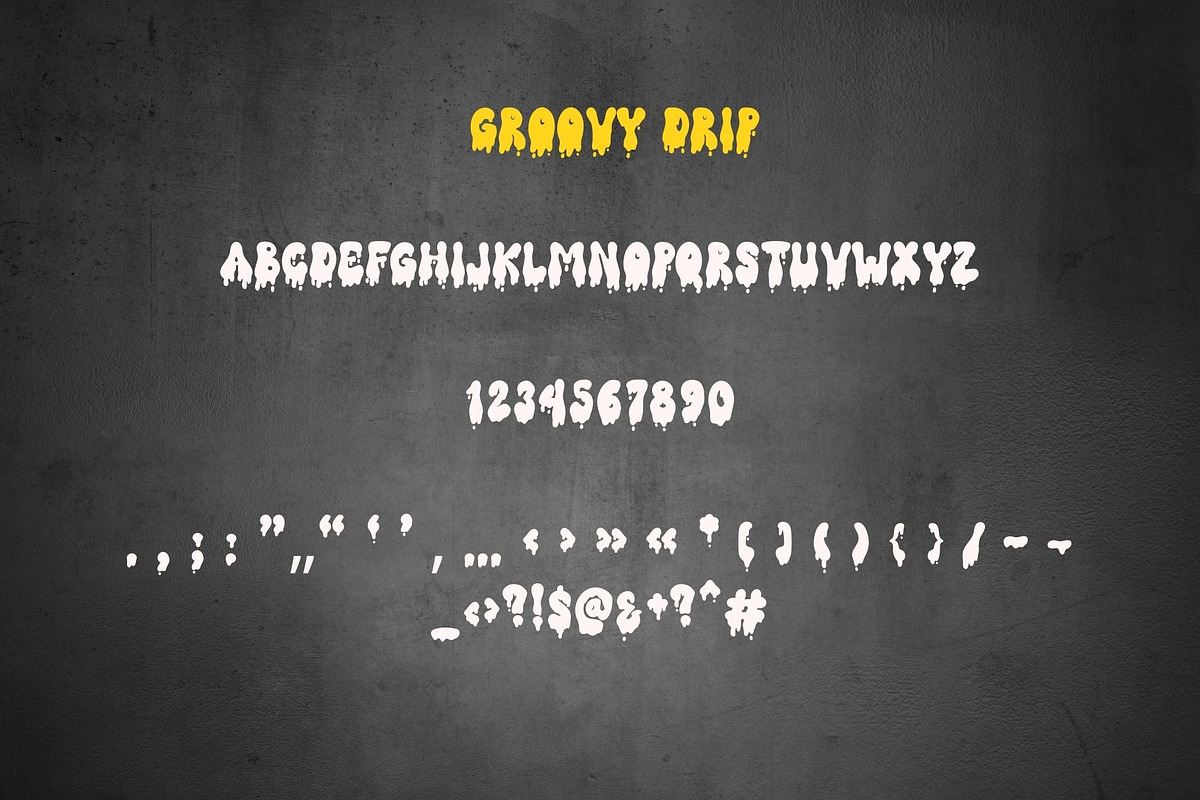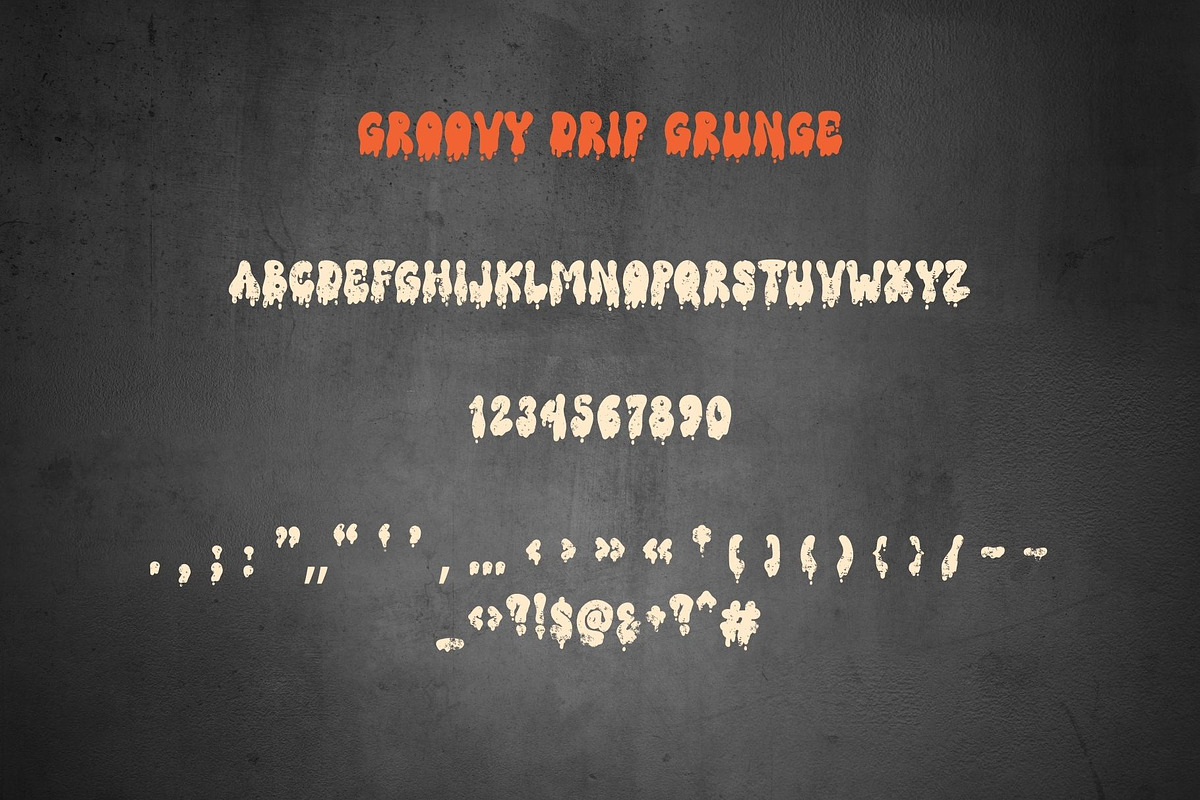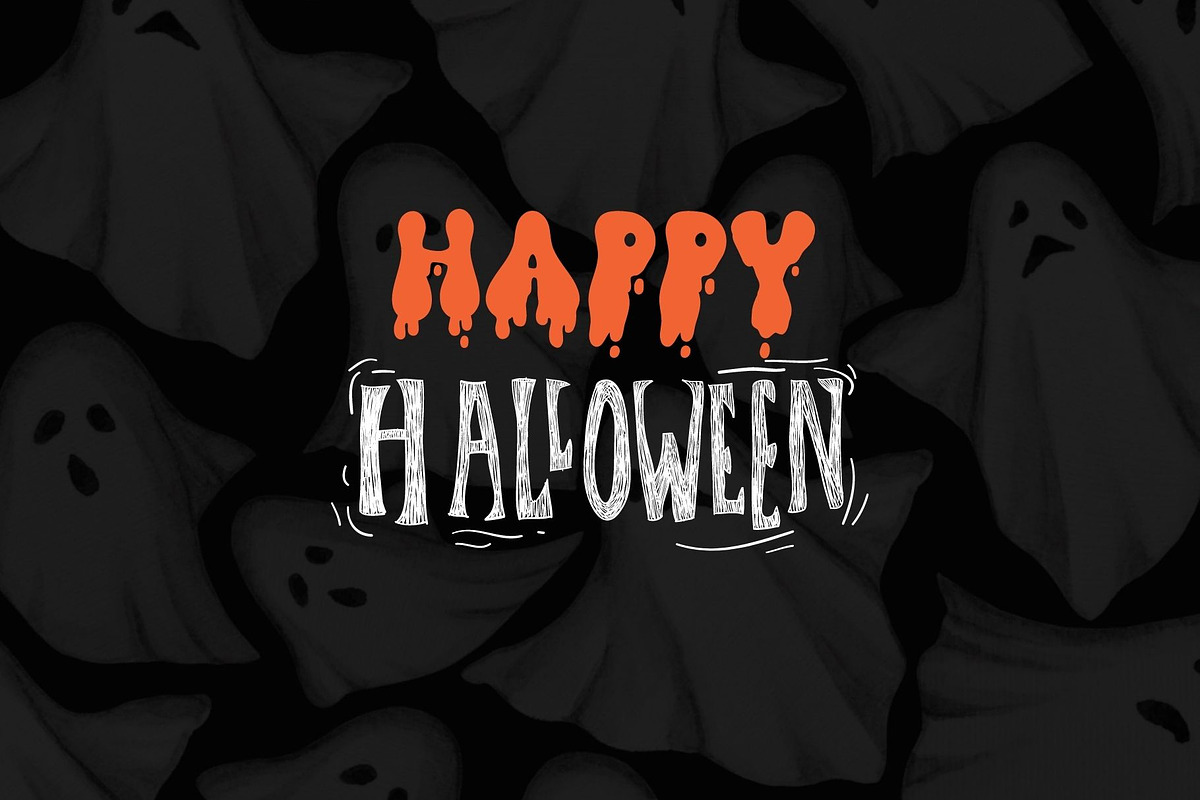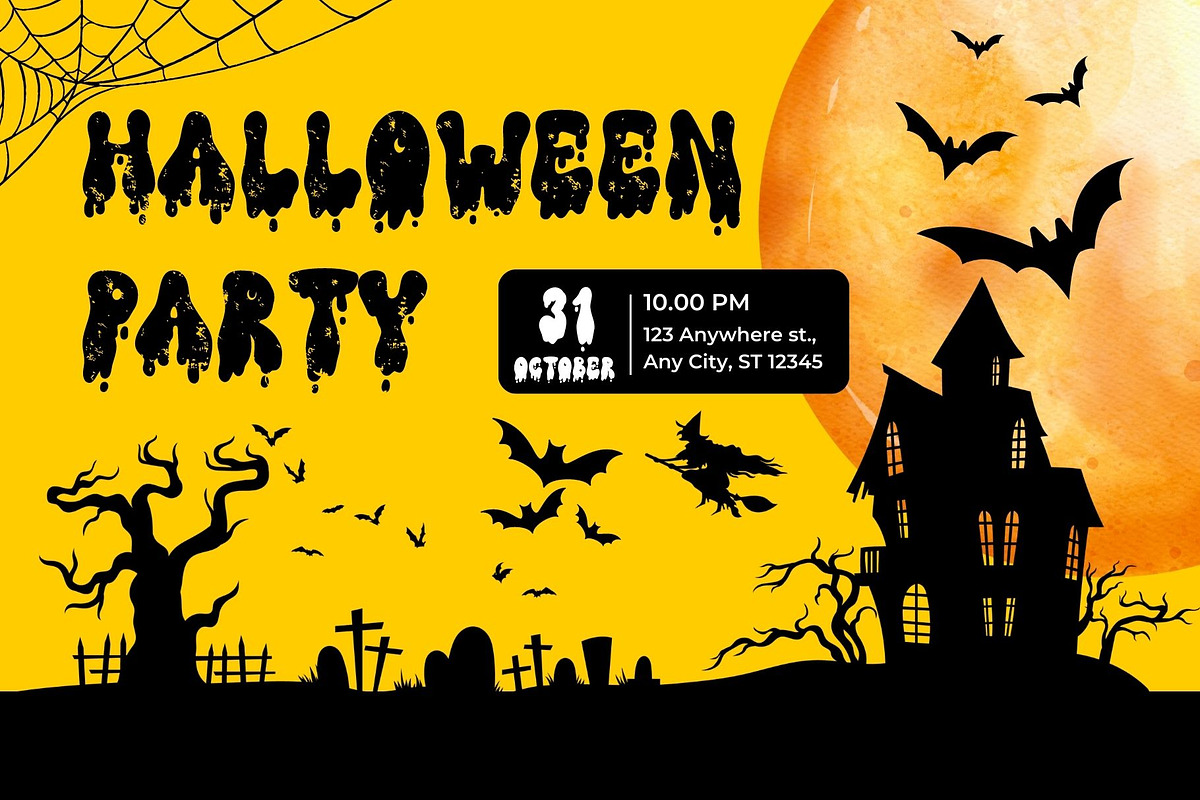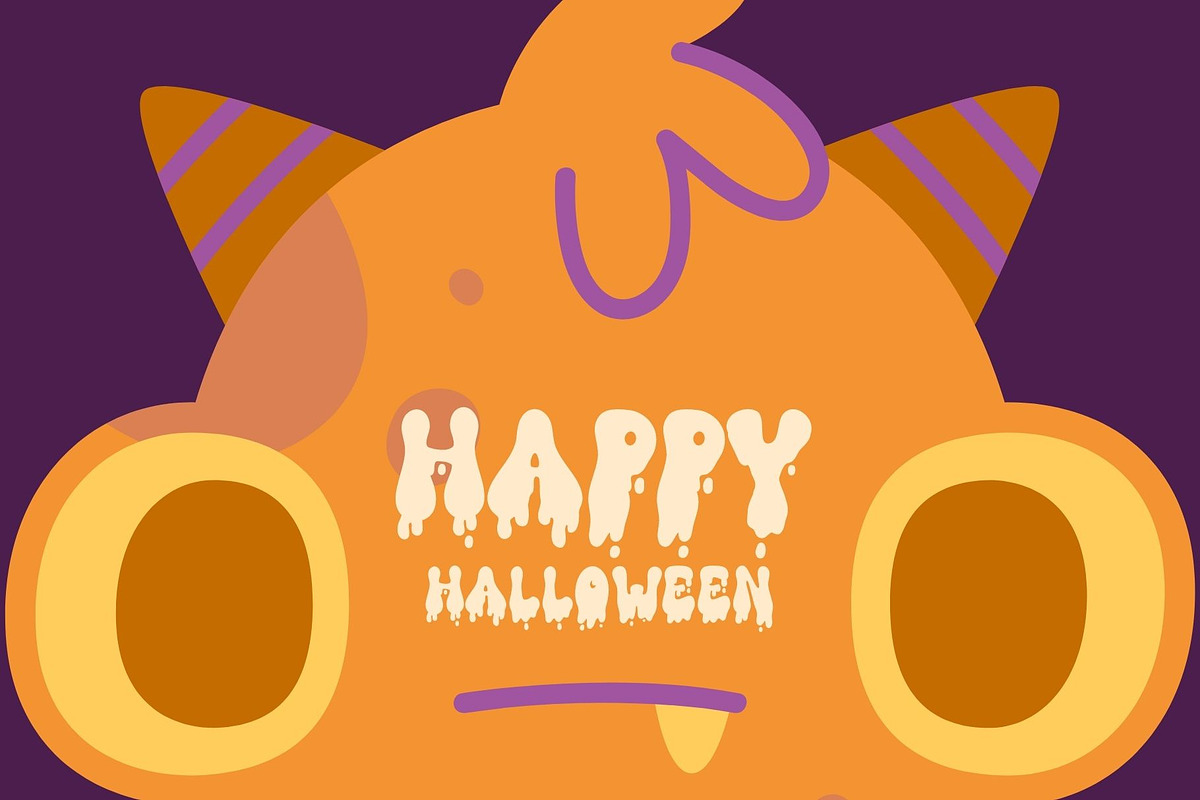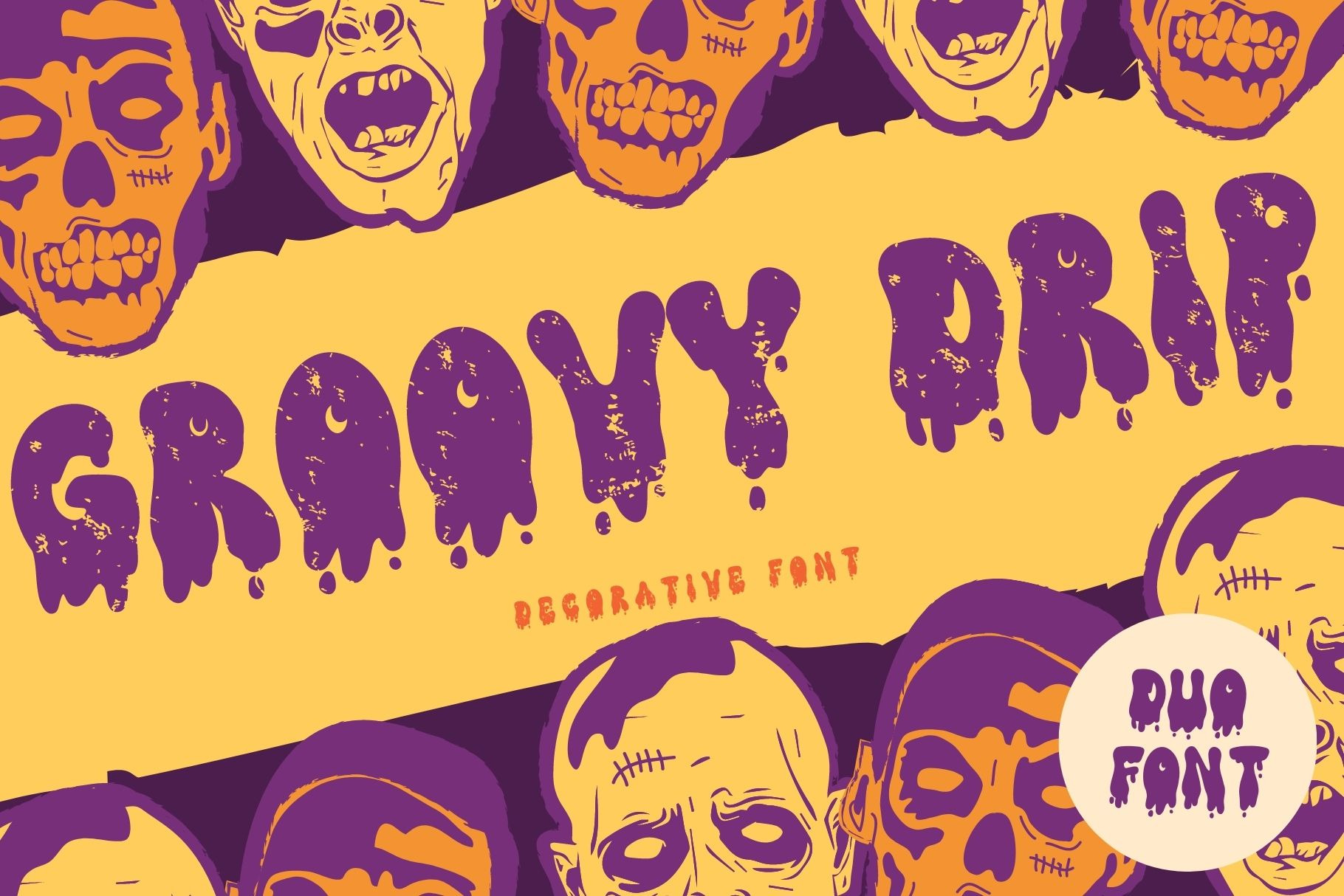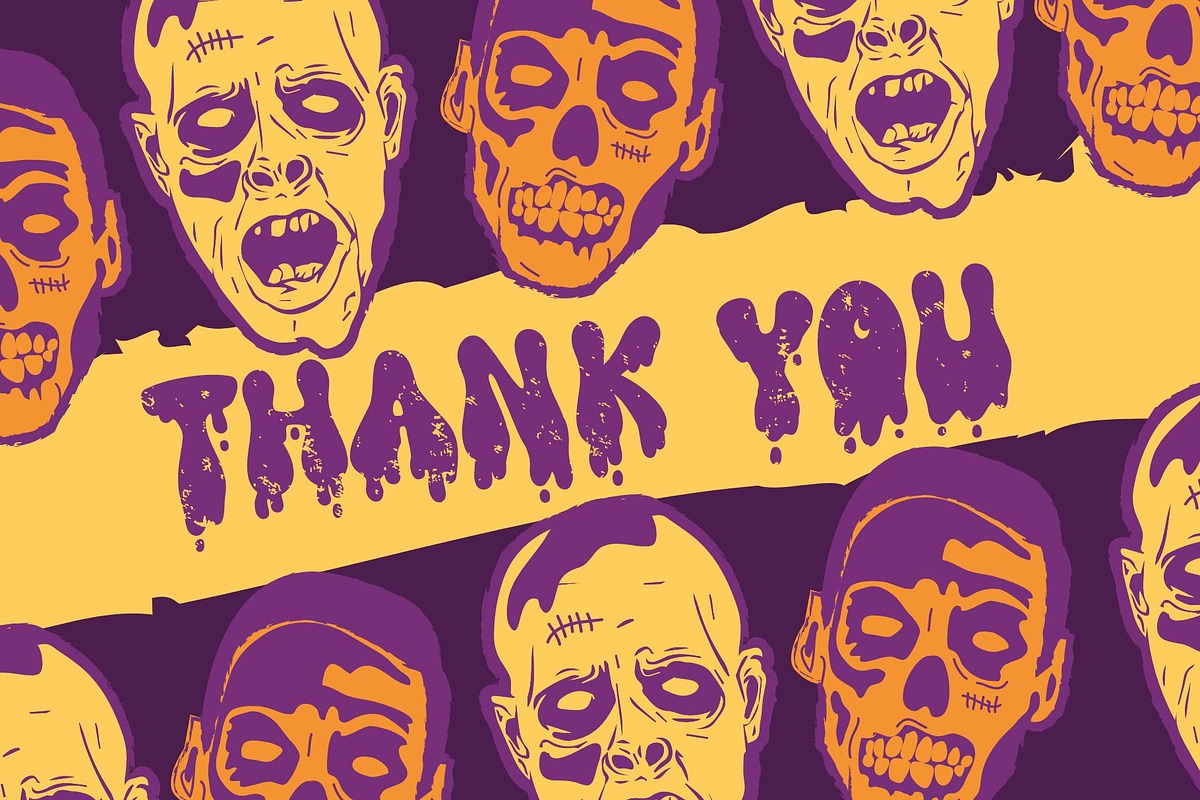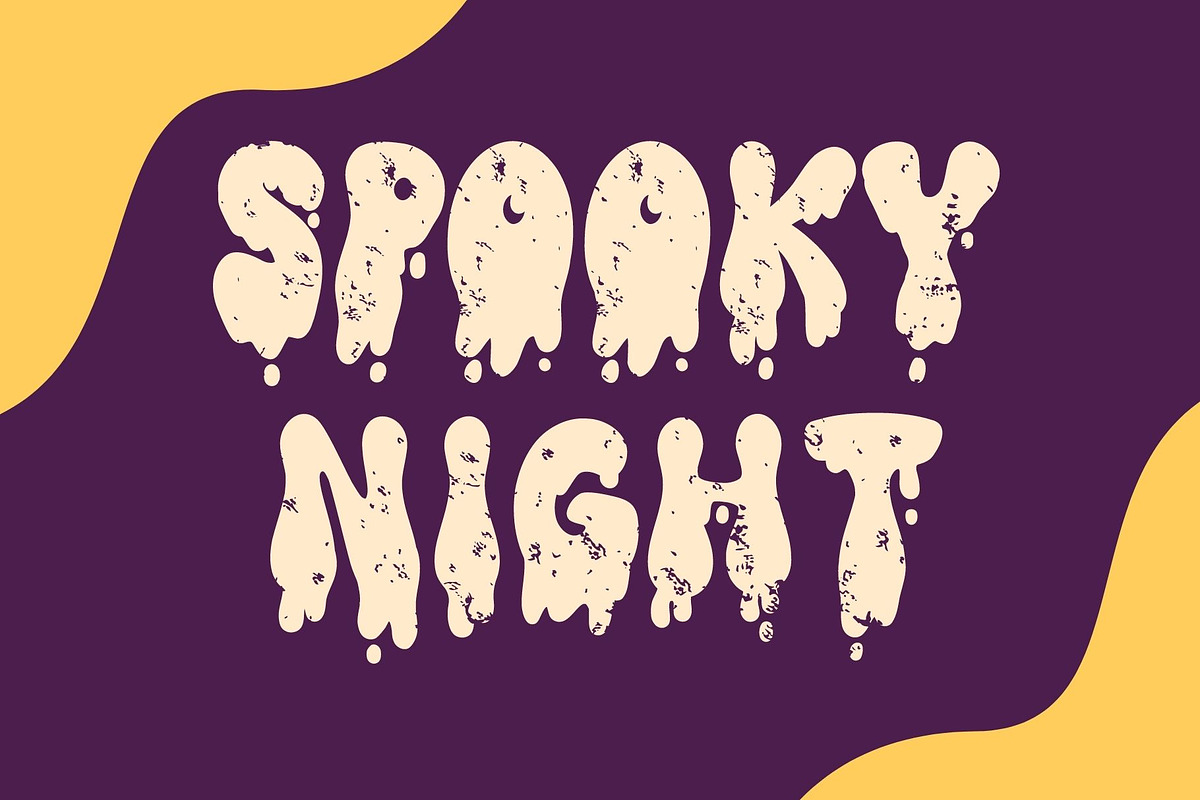
Groovy Drip is a cool Halloween font
Groovy Drip is a cool Halloween decorative or display font. The additional elements of blood dripping and bones-like letters make an ambiance of horror Invitations, postcards, posters, and headings for a Halloween event; this font can be used in every setting.